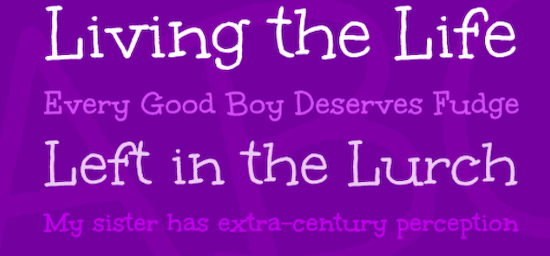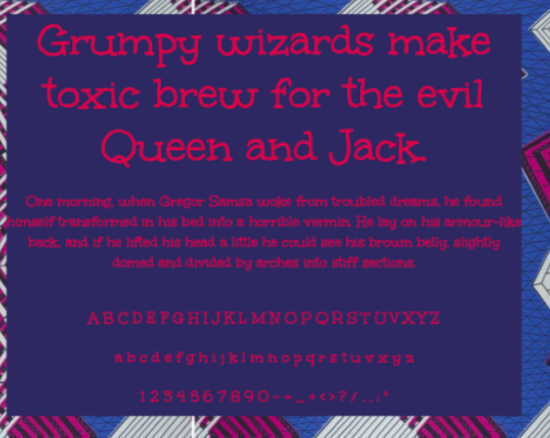
Unkempt Font
by Google Designers
Introducing Unkempt font. It is a font that was designed to enhance attraction for each of your design projects with a touch of unique as well as decisive style. Unkempt is made in handwriting style so it is fit suitable for use in display titles and product design. These styles of this font family are created to give different styles but they still have the same character.
With this font. It is an excellent complement or can stand strong on its own to pair with other design fonts, for this is a unique display font. Unkempt font will look outstanding in every type of design.
“Unkempt” is a classy display font that is crafted by hand, and it is inspired by classic posters. Unkempt comes with punctuation, lowercase, uppercase, numerals, as well as many variations on each character. This Unkempt font family is clean and legible feel makes it can be used as both body type and display in any font size.
Unkempt Display Font
Unkempt font is a vintage expanded and solid display typeface. It brings a strong message to your design projects. This display font is perfect for making stand-out quotes images, creating display images for social media, branding, and much more.
Unkempt font is a great popular display typeface. So, using this font to add that special luxury touch to your design ideas. And when you use this Unkempt font, it will elevate your design projects to the highest level, e,g labels, logos, signatures, invitations, wedding designs, headings, branding, and much more.